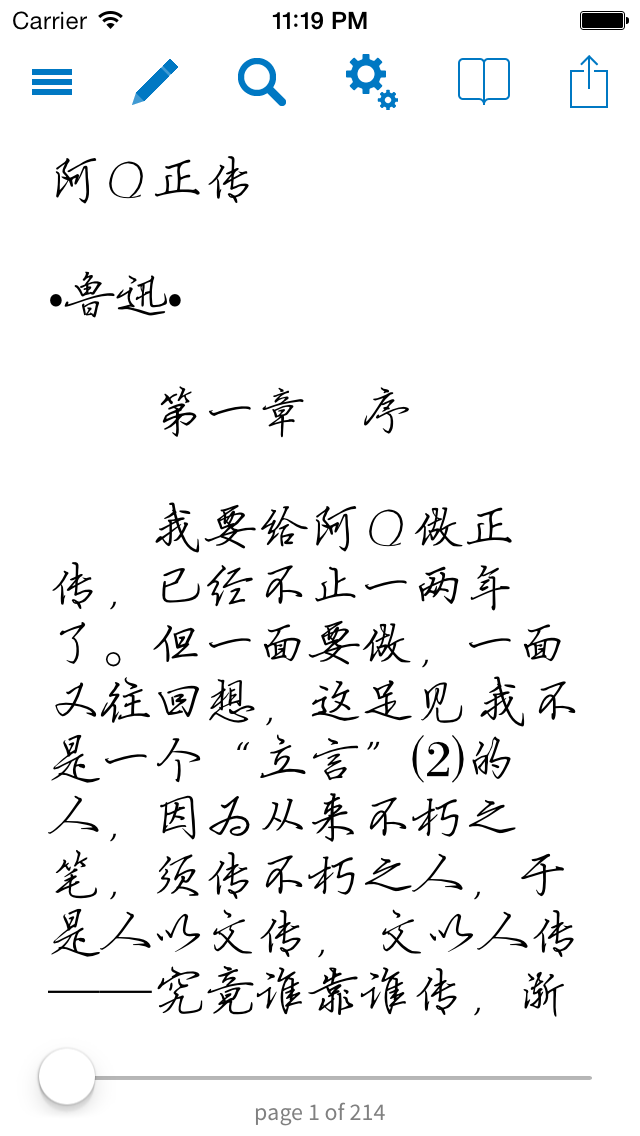
If it were possible, I would have voted for all. Wenlin is really not enough to get used to all possible scripts with which we often have to deal. The grave embarrassment of "What's written on this wall?" has to be dealt with!![]()
We might consider that if the current batch goes well, though it's tricky to find fonts with comprehensive character coverage in the less common scripts - we're having trouble with our Xing-style font already because of that.